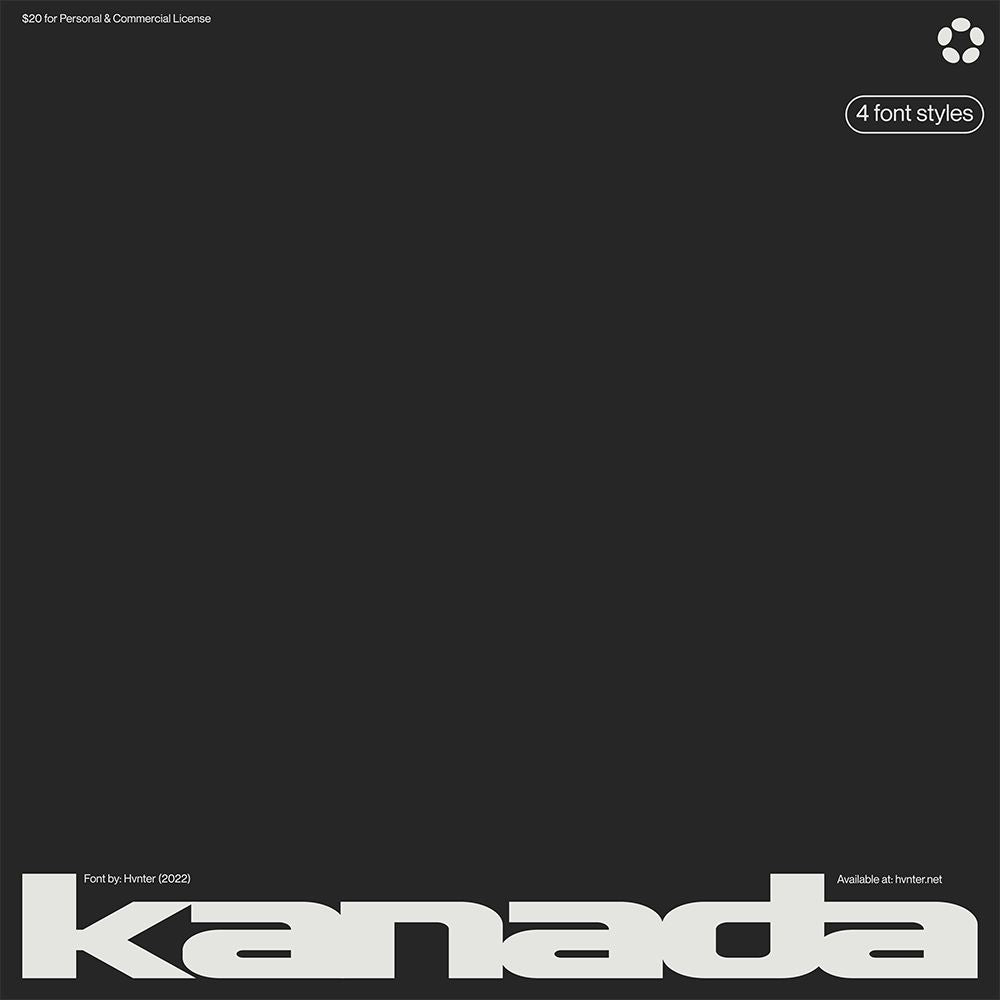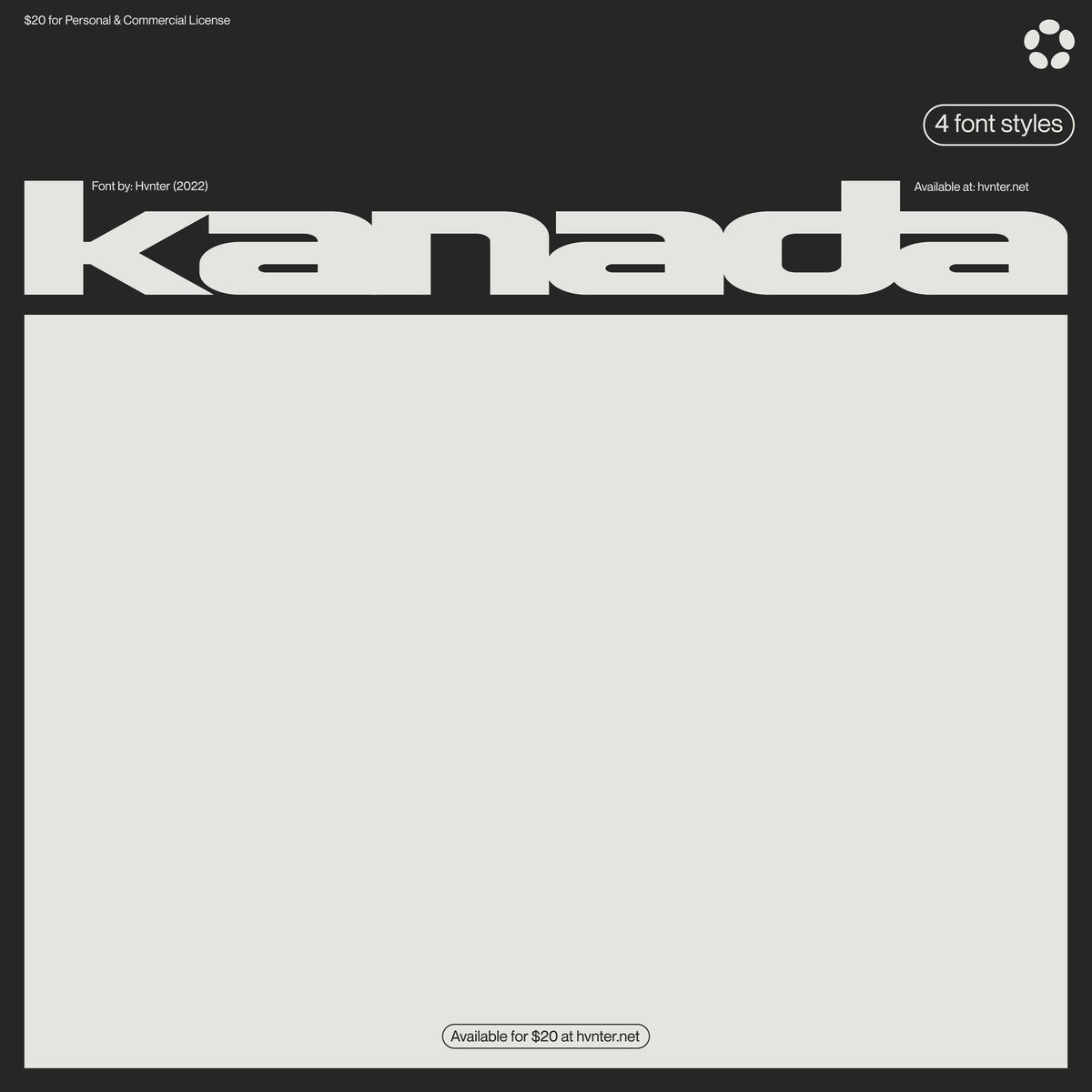
Kanada Typeface
The Kanada Typeface is a font package that includes four styles - Regular, Italic, Wide, and Wide Italic, covering A-Z, 0-9, and basic symbols. All styles are provided in an .otf font file.
Ideal for grunge-inspired graphic design and streetwear branding. Perfect for posters, album covers, and promotional materials, ensuring a bold and unique typographic presence that captures attention.